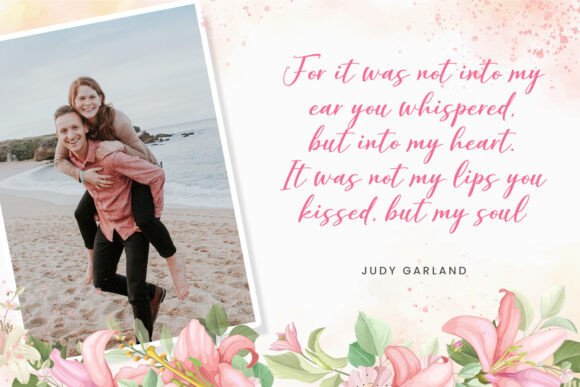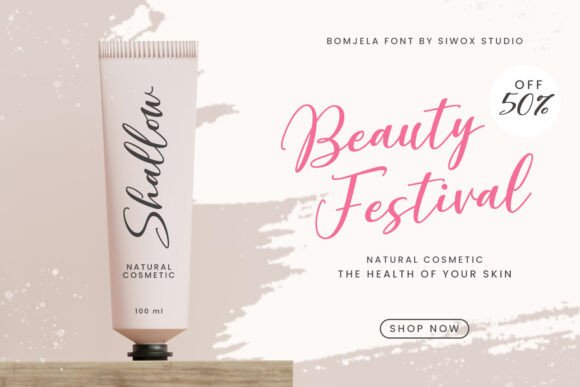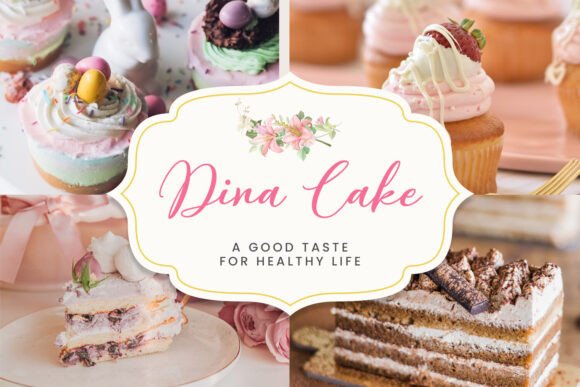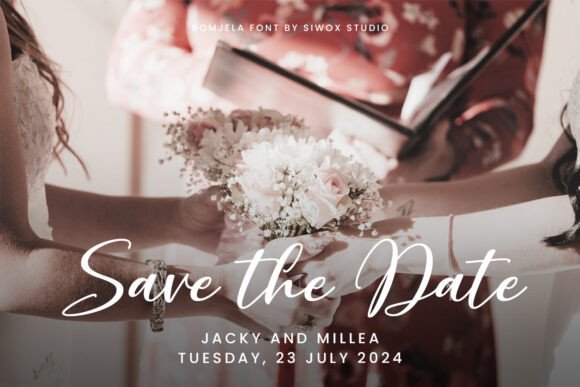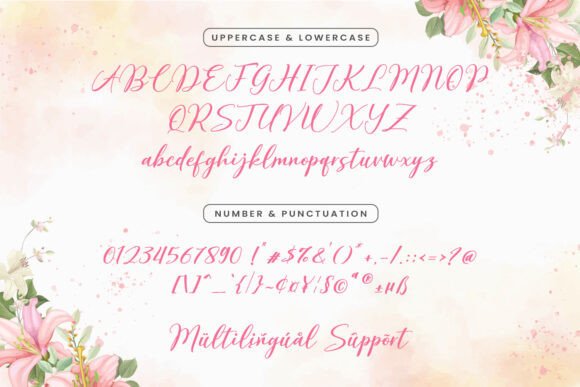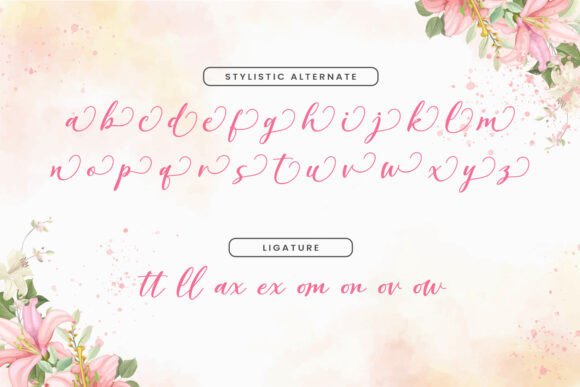
Discover the Allure of Elegance with Bomjela Font
You know that feeling when you’re brainstorming ideas for a special project and the perfect font just pops into your mind? For many designers, that moment is what drives creativity and sets the tone for a successful design. For me, it was the moment I stumbled upon the Bomjela Font, a captivating handwritten font that exudes a romantic aura.
Bomjela Font is more than just a font – it’s a key to unlocking the perfect visual impact for your design project. Whether it’s for invitations, logos, branding, or advertising campaigns, this elegant font ensures a distinguished look that sets you apart from the rest. As a designer, you know how valuable it is to have a font that can add a touch of sophistication and authenticity to your work.
With Bomjela Font, the possibilities are endless – from social media posts to product packaging designs and labels, this font lends an authentic handwriting touch that’s sure to make your designs stand out.
Bomjela Font Key Features
- Font Style: Script, Display
- Unique Characteristics: Ornate, elegant, and highly decorative, making it suitable for titles, headings, and special occasions
Bomjela Font Review
I’ve had the chance to work with the Bomjela font, and I must say it’s a unique and interesting addition to any design project. ✨ The font’s irregular shapes and bold lines create a striking visual impact, making it perfect for titles and headings. It’s also surprisingly readable, even at smaller font sizes.
However, as with any font, there are some limitations. ⚠️ One of the main issues I’ve encountered is the font’s lack of consistency. Some characters feel a bit off, which can be distracting if used extensively. Additionally, the font’s boldness can sometimes make it feel overwhelming.
Here are some specific pros and cons I’ve noticed:
- ✨ Unique and striking visual impact
- ✨ Surprisingly readable at smaller font sizes
- ⚠️ Inconsistent character design
- ⚠️ Can feel overwhelming due to boldness
Overall, I think the Bomjela font is a great choice for designers looking to add some visual interest to their projects. While it’s not perfect, its unique qualities make it a great option for certain use cases. Just be mindful of its limitations, and use it judiciously to get the best results.
The Bomjela font is a modern, elegant font that is well-suited for a variety of applications, including:
– Fashion and beauty branding
– Luxury product packaging
– High-end event invitations
– Editorial and publishing design
– Use bold and large font sizes to create a dramatic effect.